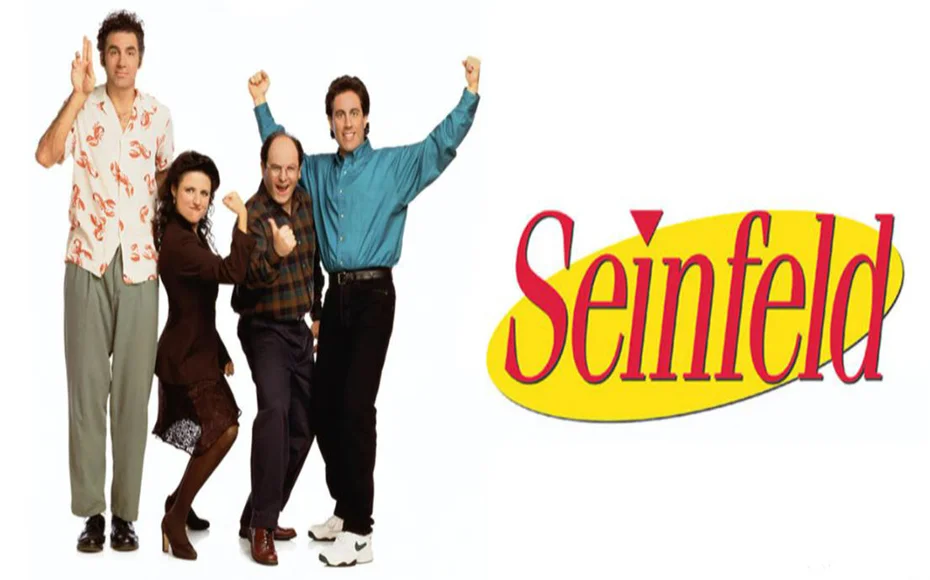
Seinfeld Font Free Download
Today we are introducing Seinfeld Font! It has an elegant appearance. The serifs on each letter are carefully crafted to convey their own personality.
Basically, it is an American live-action comedy show that was aired from July 5, 1989, to May 14, 1998. And it was developed by Larry David with Jerry Seinfeld for NBC.
Now, the show is known as the most famous and influential comedy show of all time. And a lot of new sites are taking over to impress.
So, this show is very popular in the USA, so, today we want to show you the same font family that was used for the Seinfeld logo. Its name is ITC Fenice.
A large number of designers are using this amazing font for their developing projects as it is perfect for display and title purposes.
You can use it for various designing projects. Such as for posters, logos, book covers, stickers, titling, headlines, signatures, product packaging, product designs, and other many places.
ITC Fenice Font comes in 16 different weights including Light, Light Oblique, Regular, Oblique, Bold, Bold Oblique, Ultra, and Ultra Oblique.